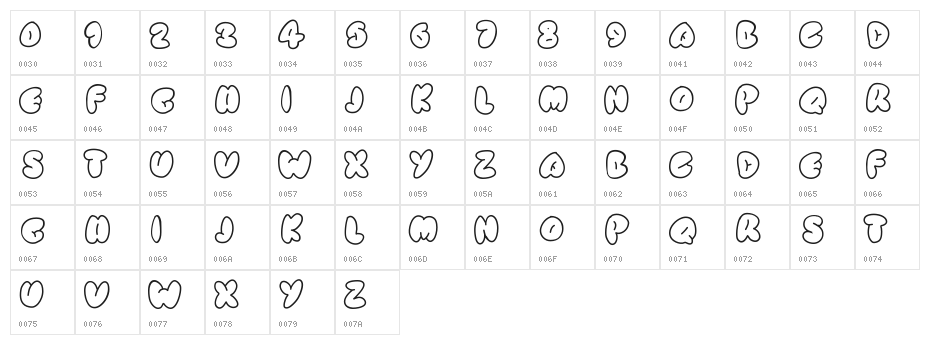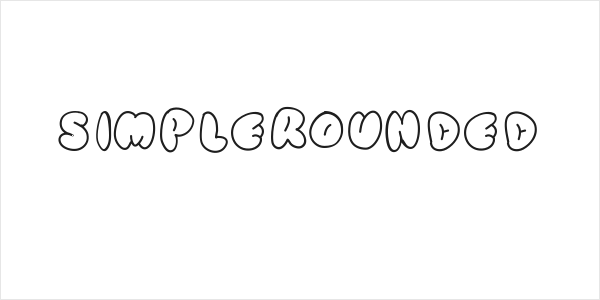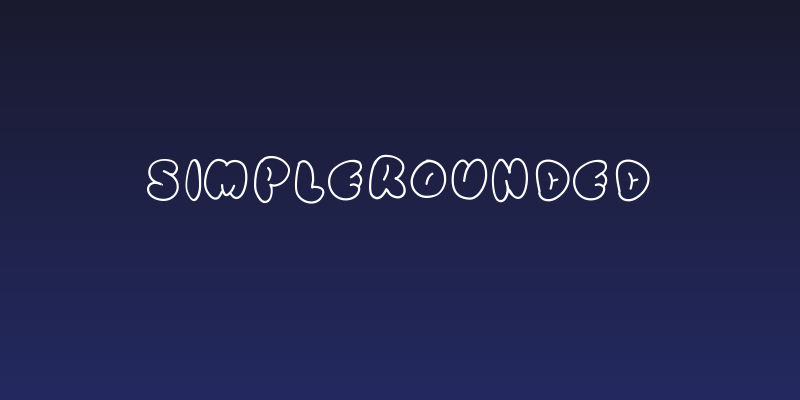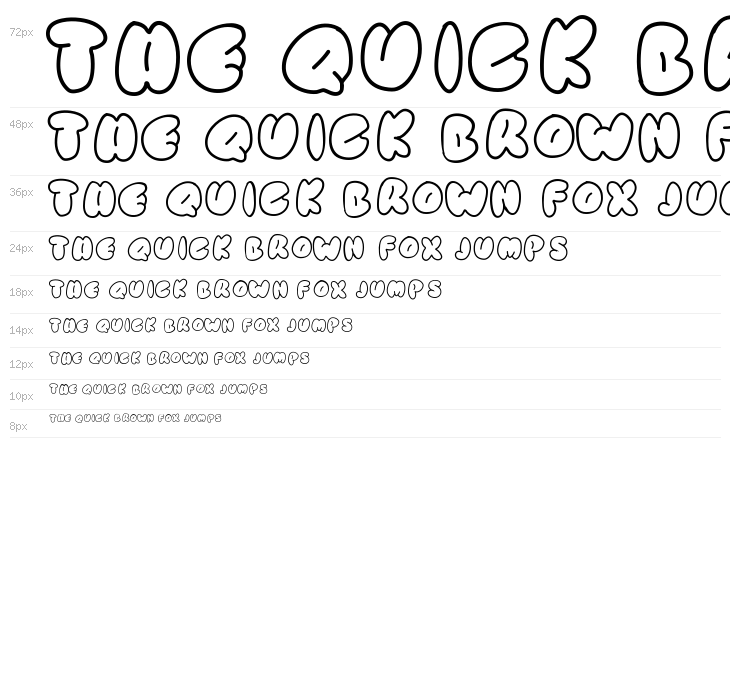
SimpleRounded Font
SimpleRounded Description
This playful and rounded font features bold, bubble-like characters with a consistent thickness throughout. Each letter and number is enclosed in a thick outline, giving it a cartoonish and friendly appearance. The characters are evenly spaced, maintaining a uniform look that enhances readability. The font's whimsical style makes it ideal for projects that require a fun and informal touch. Its boldness ensures that it stands out, making it suitable for eye-catching designs.
| Overall Style | Playful, Cartoonish |
| Proposed Projects | Ideal for children's books, playful branding, party invitations, and comic-style graphics. |